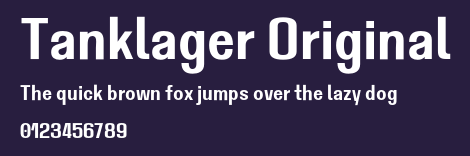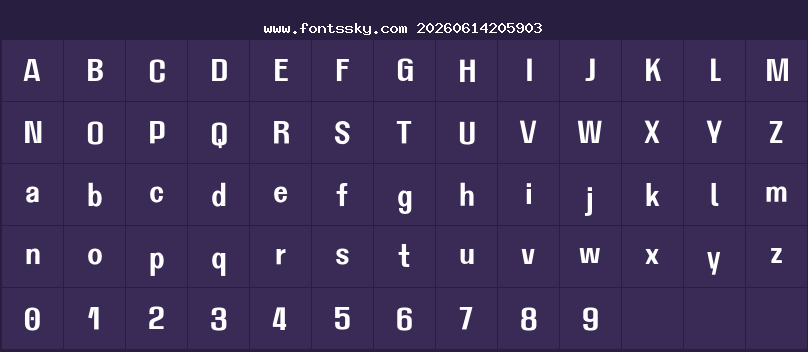
• Font Name: Tanklager Original
• Full Font Name: Tanklager Original
• Designer: Ariel Martín Pérez
• Manufacturer: Tunera Type Foundry
About Tanklager Original.otf
Tanklager Original.otf is a modern, elegant sans-serif font designed for ultimate readability and visual harmony. Perfect for branding, headlines, web design, and print materials.